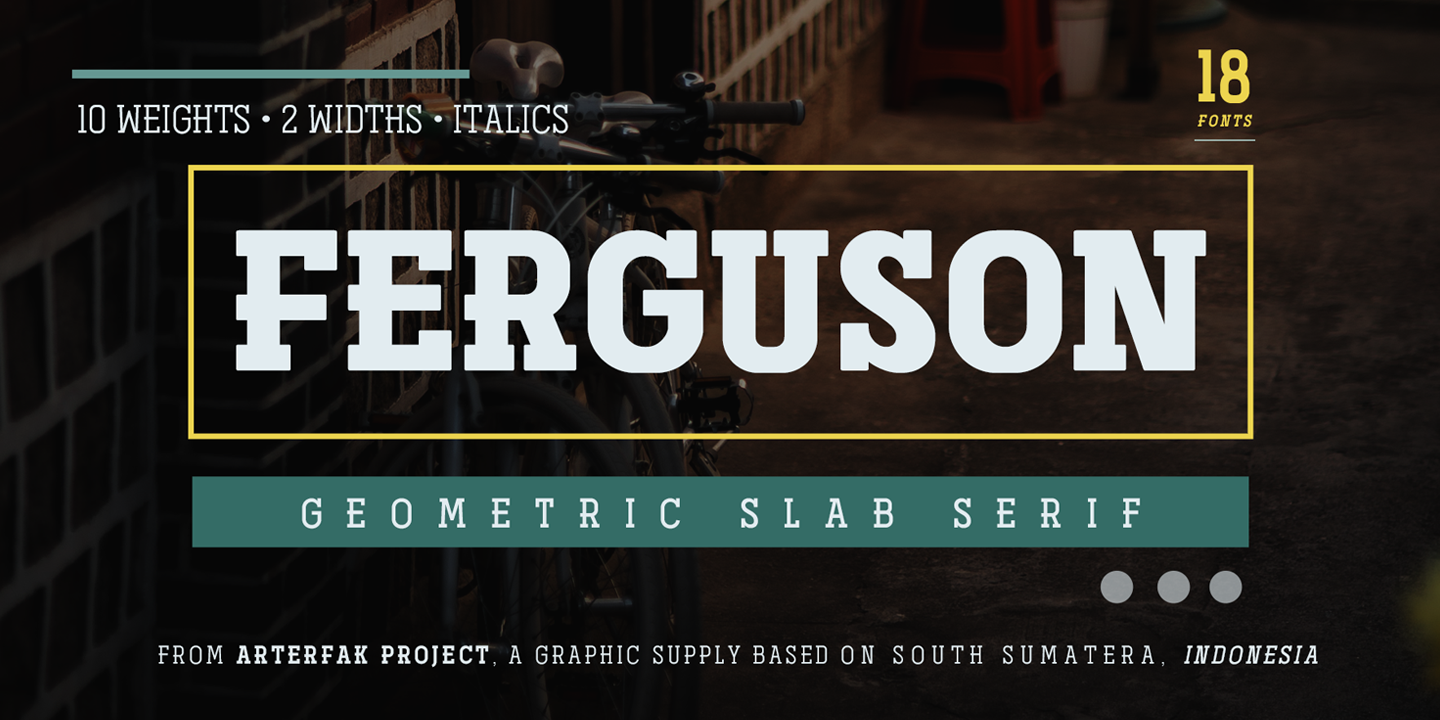
Ferguson Font is perfect for traditional business branding, established law firms, heritage company materials, classic corporate communications, distinguished institutional signage, professional service presentations, academic publications, and authoritative brand positioning.
This distinguished serif typeface is exciting because it embodies institutional authority and professional gravitas through time-tested letterforms that convey trustworthiness, established credibility, and the enduring reliability of traditional business excellence.
The Ferguson Font family includes light, regular, medium, and bold weights with corresponding italic styles, providing professionals with comprehensive typographic tools for creating authoritative brand hierarchies and distinguished corporate communications with institutional presence.
Authoritative and established, Ferguson Font Free Download represents the pinnacle of institutional typography through its projection of professional credibility and business authority. This distinguished font embodies the trust and reliability that comes from generations of proven excellence, making it essential for established organizations that understand reputation is built through consistent quality and professional integrity. Its classical character reflects the enduring principles and traditional values that create lasting business relationships and the institutional wisdom that guides successful long-term strategic thinking, resonating with professional audiences who appreciate stability and proven expertise. Perfect for law firms and established corporations, this font ensures your message carries the institutional credibility and professional authority that serious business relationships demand. Whether used for corporate annual reports or professional service materials, Ferguson Font Free Download delivers the business authenticity and institutional presence that connects with clients who understand that the best professional relationships are built on trust, competence, and the proven track record that comes from decades of reliable service and unwavering commitment to professional excellence.